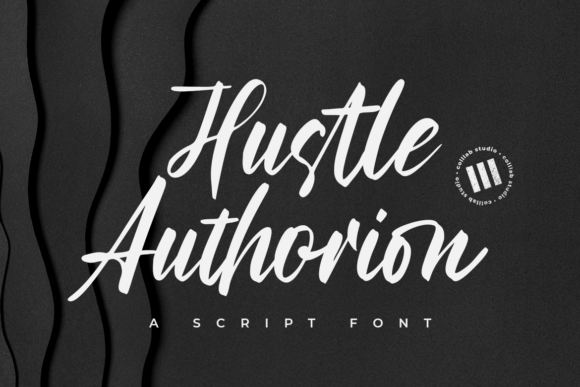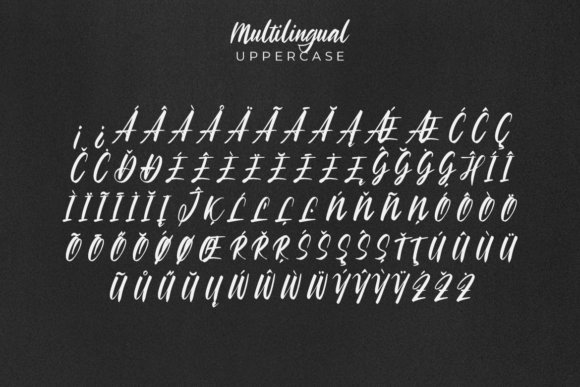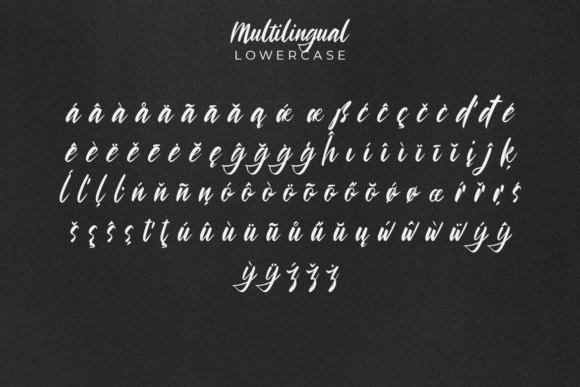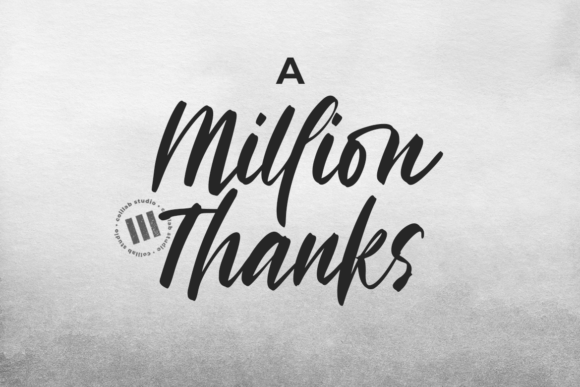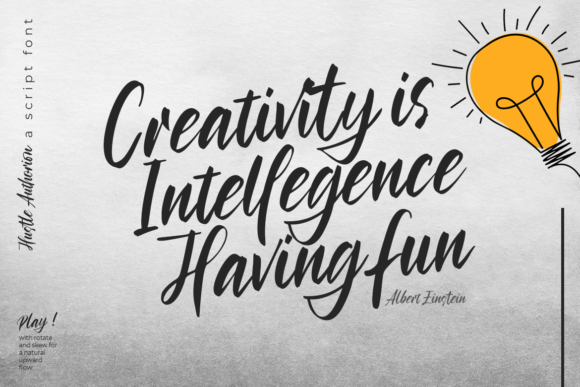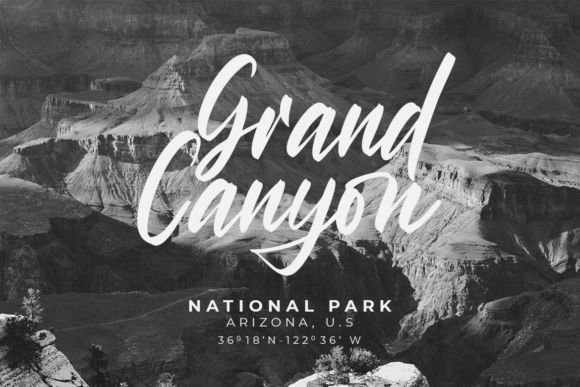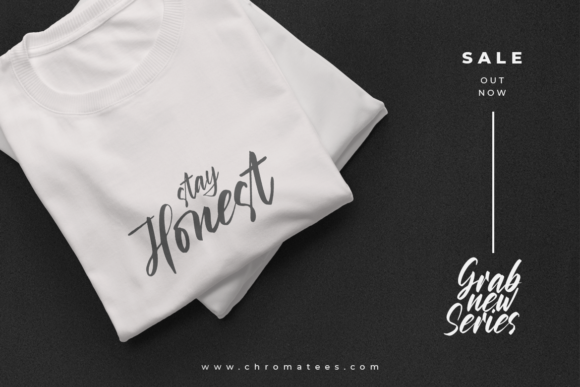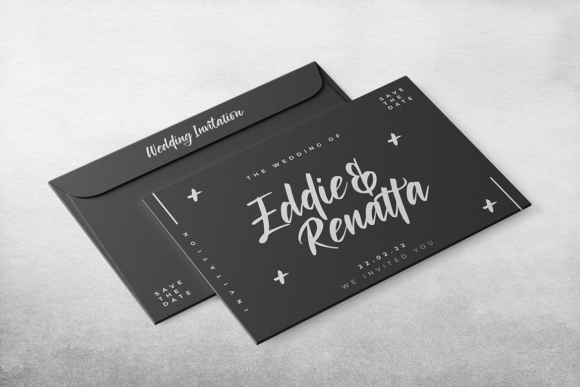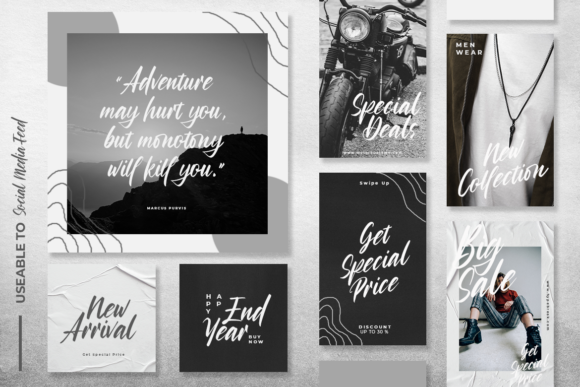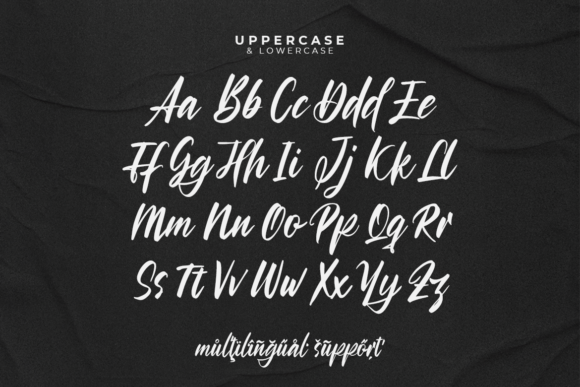
Hustle Authorion Font
About Hustle Authorion Font
Hustle Authorion is a font that exudes creativity and artistic flair with its paint brushed handwritten style. Its unique and authentic appearance makes it a versatile choice for various design projects. Whether you’re using it for crafting, digital designing, presentations, or greeting cards making, Hustle Authorion is the perfect font to add a touch of artistic charm and originality.
The paint brushed texture of Hustle Authorion gives your designs a handcrafted and personal touch, making them stand out with a sense of creativity and uniqueness. Each letter carries the natural and organic feel of a brush stroke, adding a touch of artistry to your work.
With Hustle Authorion as your creative tool, you have the freedom to explore and experiment with various design projects. Whether it’s for crafting DIY projects, creating digital artworks, crafting professional presentations, or making heartfelt greeting cards, this font adapts effortlessly to bring your creative vision to life.
Embrace the creative energy of Hustle Authorion and witness how it transforms your designs into artistic masterpieces. Its paint brushed handwritten style adds a dynamic and expressive element that captivates the eyes and draws attention to your work.
Discover the joy of creating with Hustle Authorion as your trusted companion. Let its paint brushed charm be the key to unlocking your creativity and infusing your work with a sense of artistry and originality.
Whether you’re crafting for personal projects or professional endeavors, Hustle Authorion is the font that adds that extra touch of creativity and flair to your creations. Embrace the artistic potential of Hustle Authorion and let it be the font that sparks your inspiration and brings a sense of artistic vibrancy to your designs. Experience the magic of Hustle Authorion and witness how it elevates your projects to new levels of artistic expression and visual appeal.